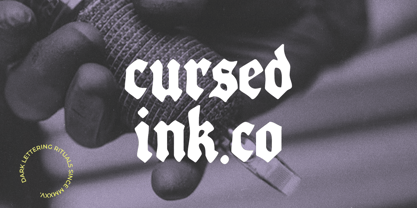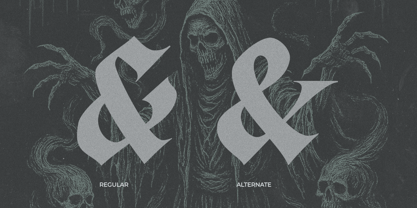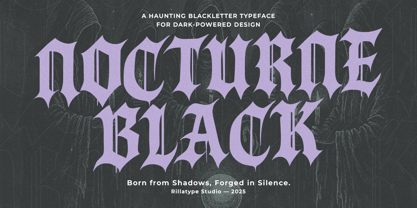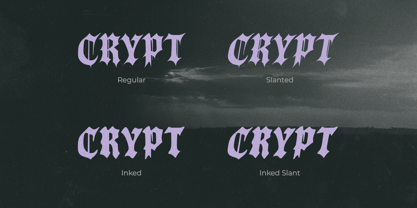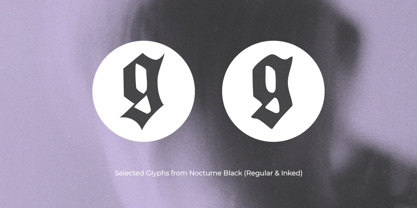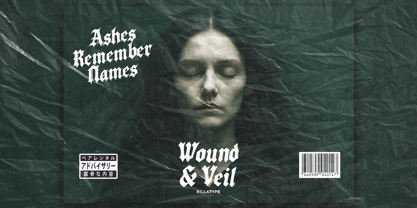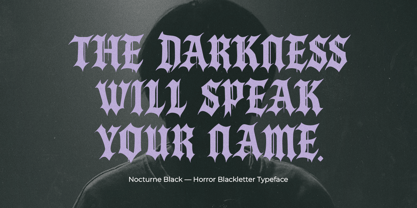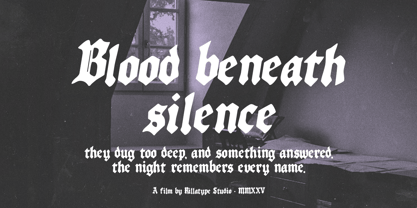
RT Nocturne Black
Die Schriftfamilie RT Nocturne Black wurde von Gustian Agung Asprilla entworfen und von Rillatype veröffentlicht. RT Nocturne Black enthält 4 Stile und Familienpaketoptionen.
Nocturne Black is a darkly elegant blackletter typeface family featuring four styles: Regular, Slanted, Inked, and Inked Slant. Designed for display use, this font brings dramatic presence to horror posters, vintage occult visuals, and music-related graphics. The Regular and Slanted cuts offer crisp gothic forms, while the Inked versions bring a distressed, gritty texture for raw energy. Suitable for titles, branding, and expressive compositions. Supports uppercase, lowercase, numerals, punctuation, and basic symbols.